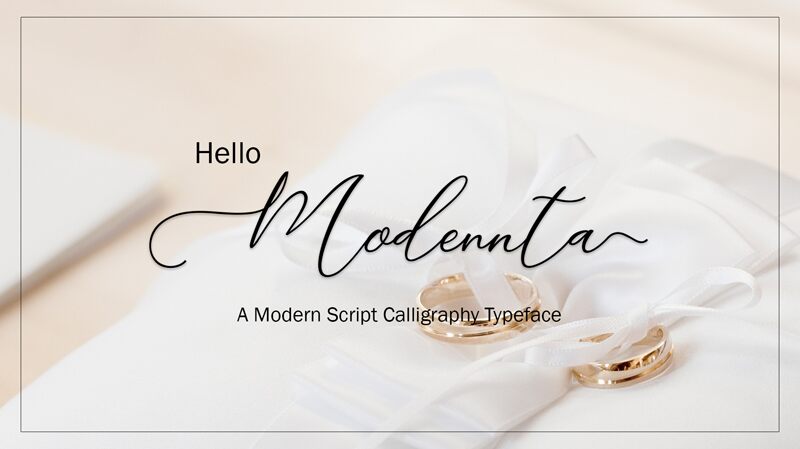
Modennta is a captivating calligraphy-inspired font that exudes elegance and grace. Crafted with a delicate, light touch, its flowing strokes and seamless connections create a sense of effortless fluidity. The font's distinctive character is defined by its refined, curvilinear forms and subtle tapering, lending an air of sophistication to any design.
Modennta's versatility shines through, making it an ideal choice for a variety of applications. From high-end branding and editorial layouts to personal stationery and wedding invitations, this font's refined aesthetics can elevate the visual impact of any project. Its unique blend of traditional calligraphic elements and modern sensibilities ensures a timeless, yet contemporary appeal.